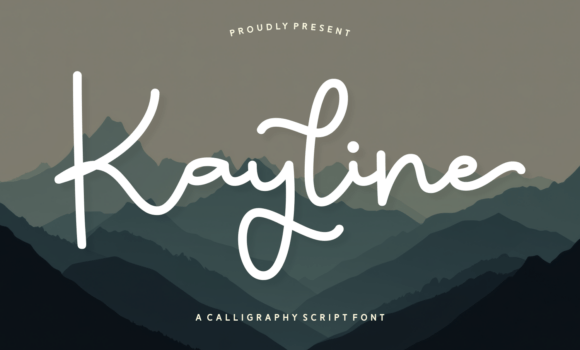
kayline
Kayline Font – Free Download Introduction to Kayline Font Kayline is a graceful and modern calligraphy script font that exudes elegance and simplicity. 📸 Preview Gallery 3 images 📌 Product Name Kayline Font 👤 Author Creative Fabrica Fonts 📂 Category